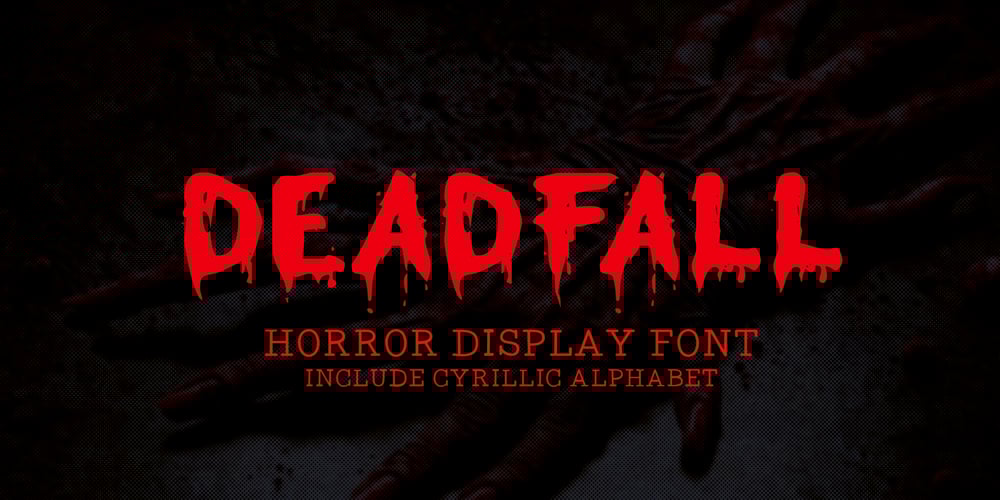
Deadfall
Deadfall font
Deadfall Font Family was designed by Mohamad Farhan Ramadhan and published by Mofr24. Deadfall contains 2 styles and family package options. Discover Deadfall, the ultimate horror display font that will send shivers down your spine! What sets Deadfall apart is its unique blend of fear-inducing aesthetics and multilingual capabilities. This Monospace typeface exudes a captivating dripped and splash style, adding an extra layer of terror to your designs. Notably, Deadfall supports the Cyrillic alphabet, making it an ideal choice for a global audience.Deadfall offers both regular and italic variations, granting you even more creative possibilities. Whether you’re designing posters, crafting marketing materials, conjuring chilling movie titles, creating Death metal logotypes, or working on Halloween-themed crafts, Deadfall will infuse your projects with a bone-chilling atmosphere.To ensure versatility, consider pairing Deadfall with related font families or other typefaces that complement its macabre charm. Its functional aspects include an extensive character set and special features, making it suitable for a wide range of applications.The design concept behind Deadfall revolves around the idea of capturing the essence of horror. The font’s distinctive dripped and splash style adds a sense of chaos and unease to any composition, immersing the viewer in a world of terror. The inclusion of the Cyrillic alphabet reflects our commitment to providing a font that caters to diverse audiences, bringing fear to every corner of the globe.We created Deadfall to meet the demand for a truly spine-tingling font that conveys a sense of horror and foreboding. Whether you’re a graphic designer looking to evoke fear or a Halloween enthusiast seeking to amplify the spooky atmosphere, Deadfall is here to unleash terror in your designs. Get ready to embrace the darkness with Deadfall – the ultimate font for all things haunting and macabre!